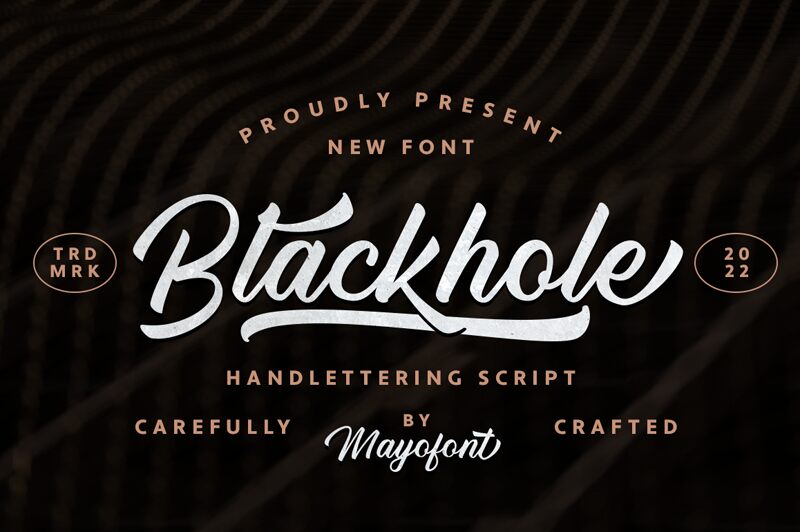
Blackhole Regular
Blackhole by Mayofont emerges as a handwritten script font, brimming with personality and opentype features that set it apart.
This font captures the essence of bespoke handlettering, infusing your creative projects with a sense of authenticity and flair. Its versatility makes it an exceptional choice for an array of designs including logos, branding endeavors, captivating covers, eye-catching posters, inspirational quotes, product packaging, and engaging merchandise. Not to mention its strong presence in social media content that demands attention.
Embrace the artistic charm of Blackhole to elevate your design narrative with a personal touch that resonates across diverse visual landscapes.